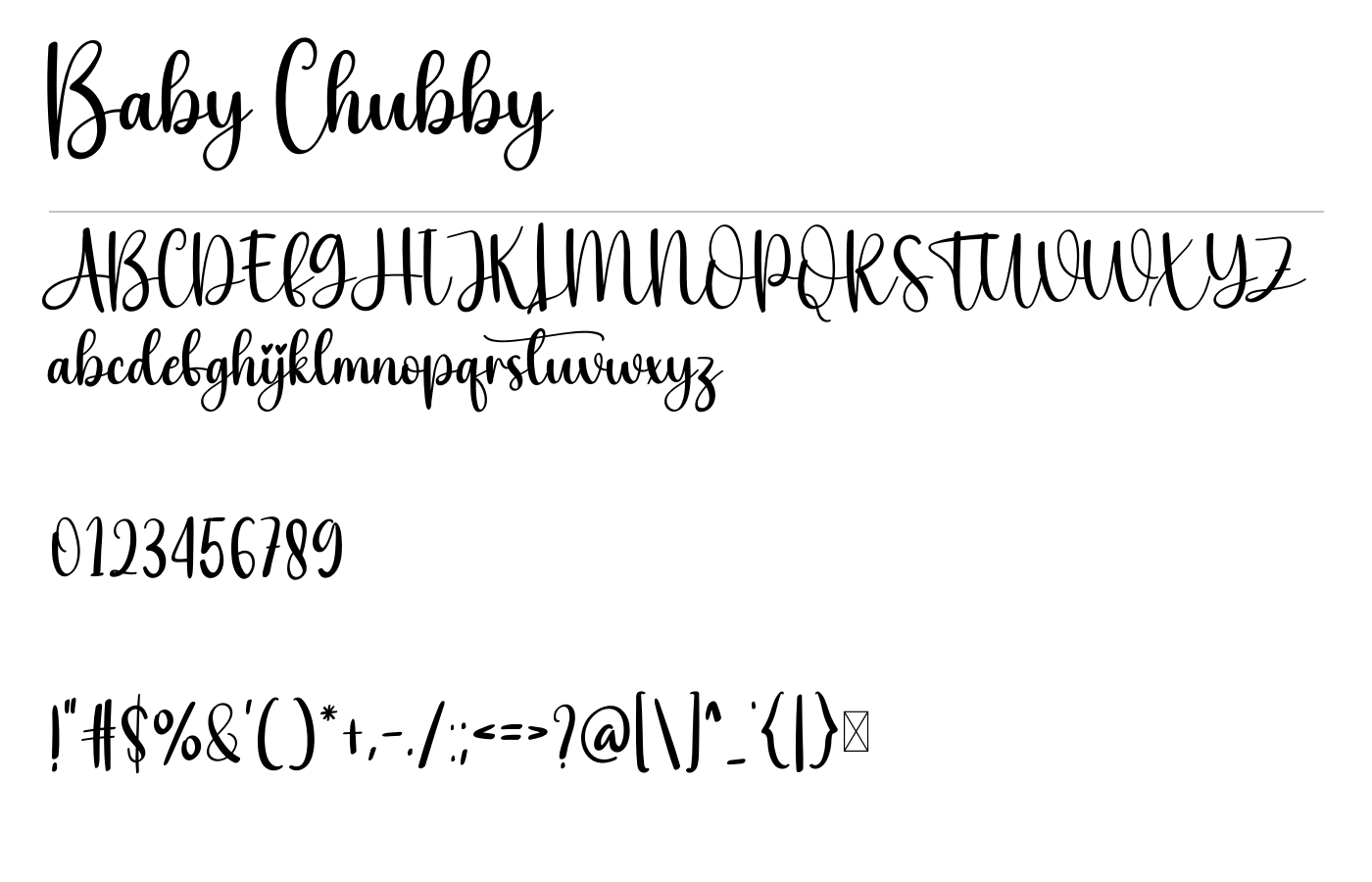
Baby Chubby is a playful and charming script font with a lively, hand-lettered feel. Its slender strokes and tall, slightly irregular characters give it a casual yet elegant personality, making it perfect for creative branding, invitations, and cheerful headlines. This font works well where a friendly, approachable tone is desired without sacrificing style.
Baby Chubby Font